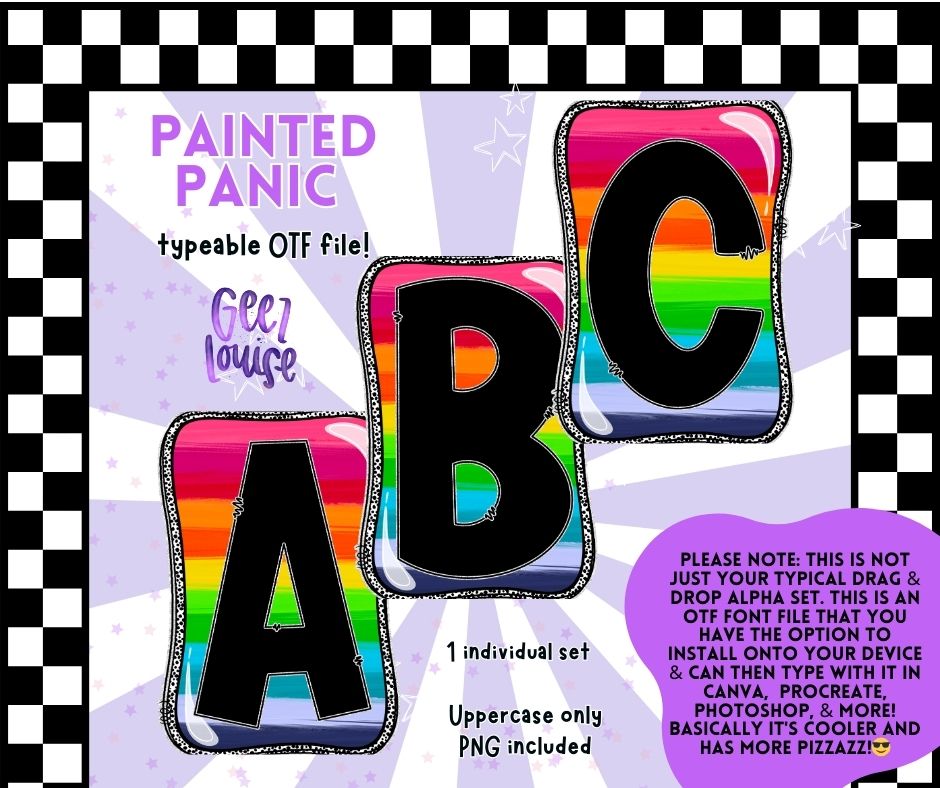
Painted Panic OTF Font + PNG Alpha Set
Let your designs scream with color using the Painted Panic OTF font! This bold, all-uppercase typeface is decked out in a hand-painted rainbow gradient with black cut-out letters, offering a vibrant look perfect for Pride, party themes, or anyone who loves a bit of chaos with their creativity.
– Uppercase only
This rainbow font is ideal for t-shirt designs, sublimation projects, stickers, and sassy statement pieces.